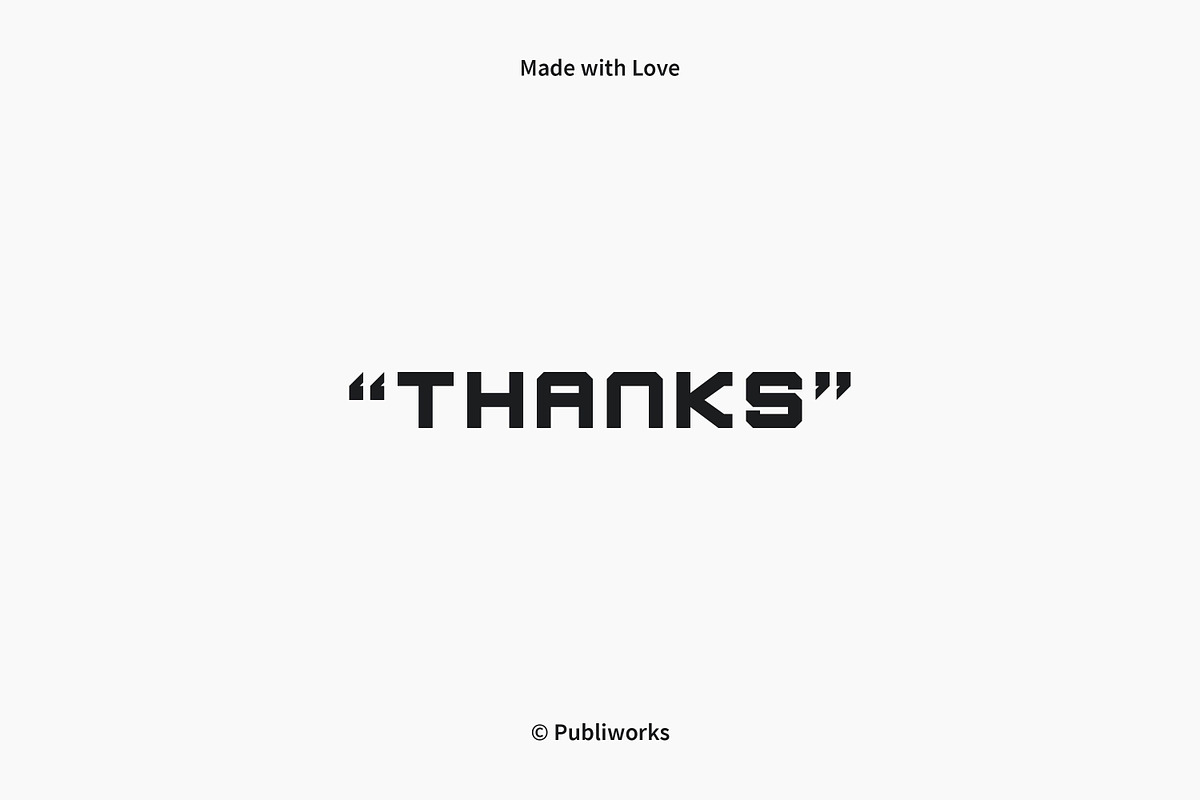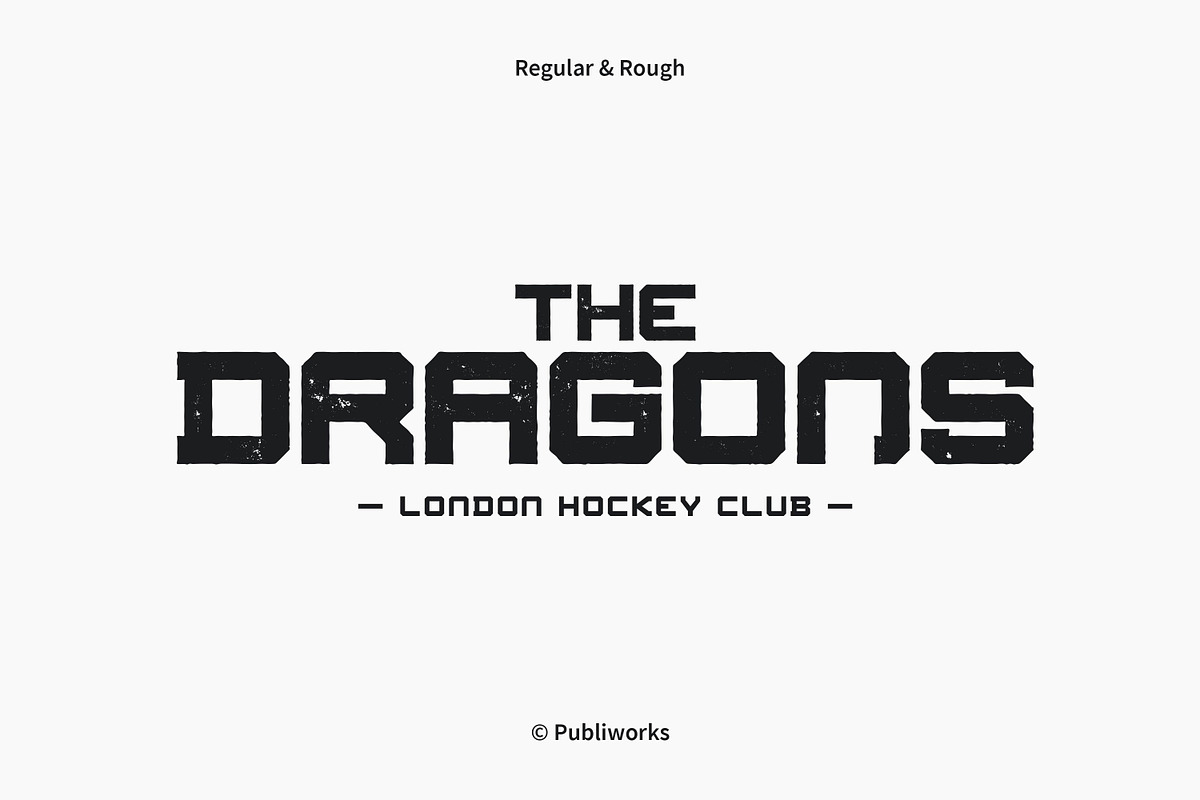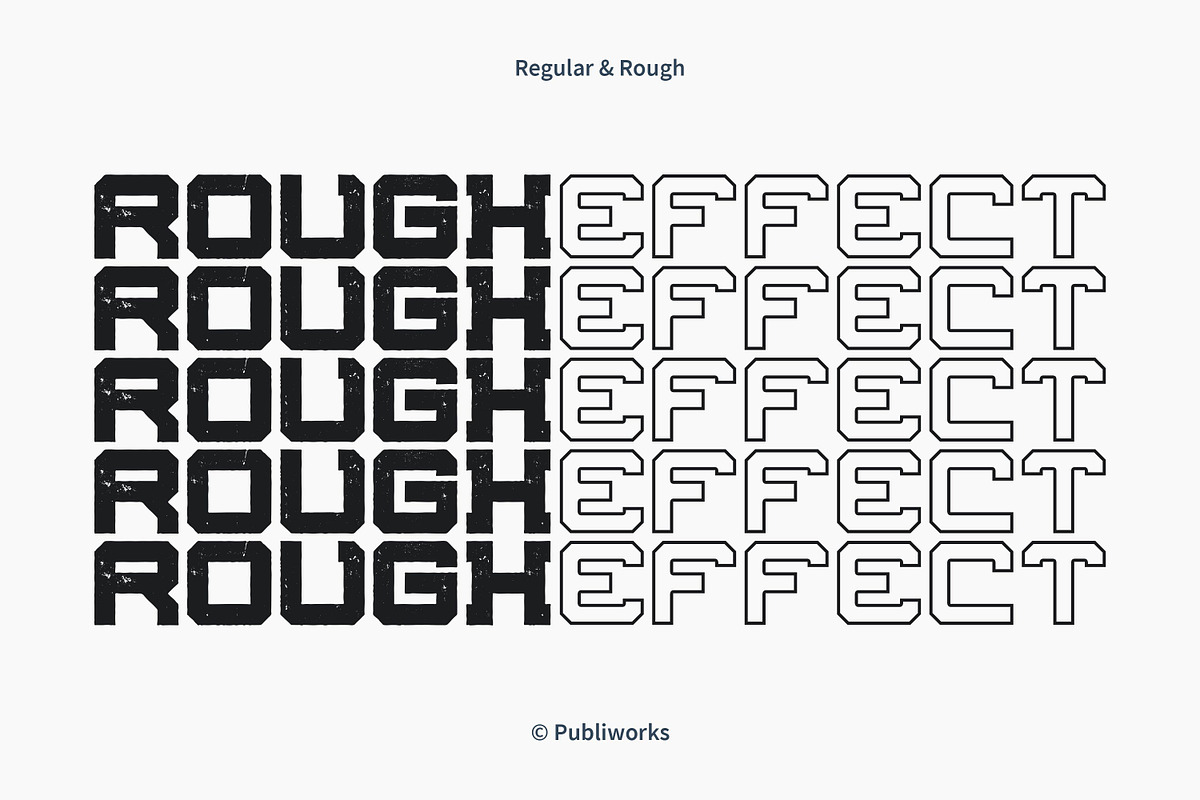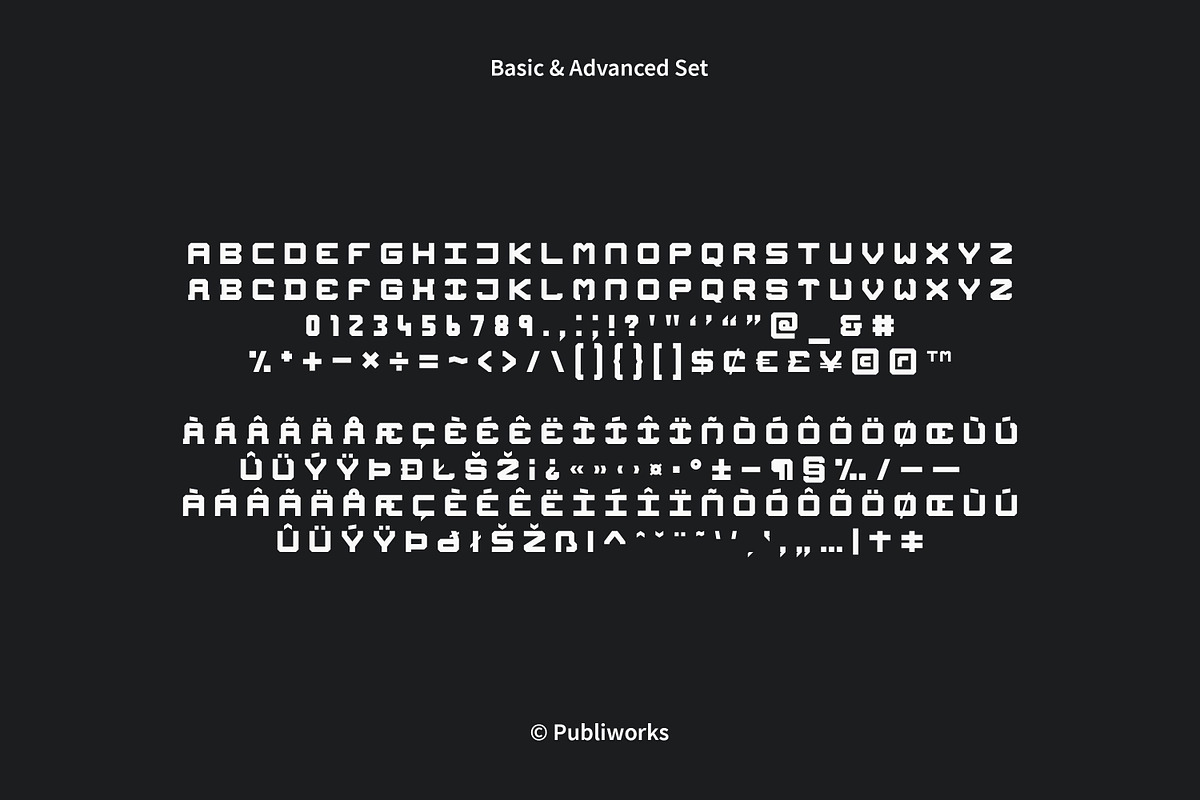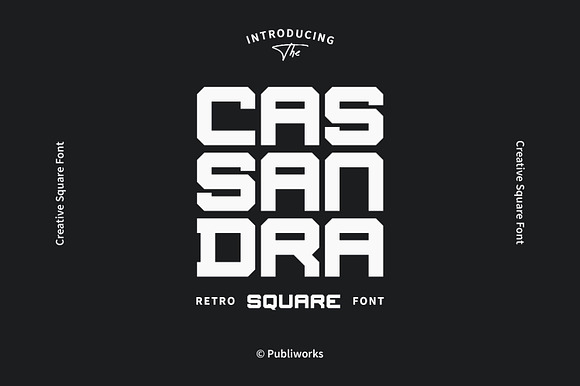
Cassandra - Creative Square Font
2 Styles (Regular, Rough)
209 Characters (Basic & Advanced Sets)
Lowercase & Uppercase (Unicase Style)
Cassandra - Creative Square Font by Publiworks fits naturally into Branding, posters, packaging, typography.